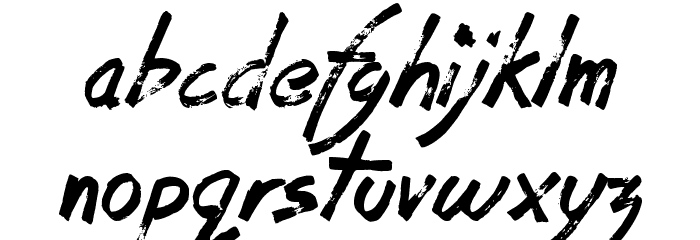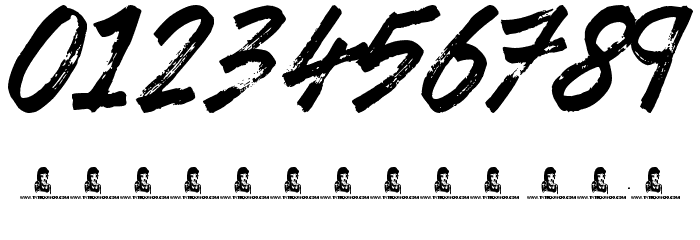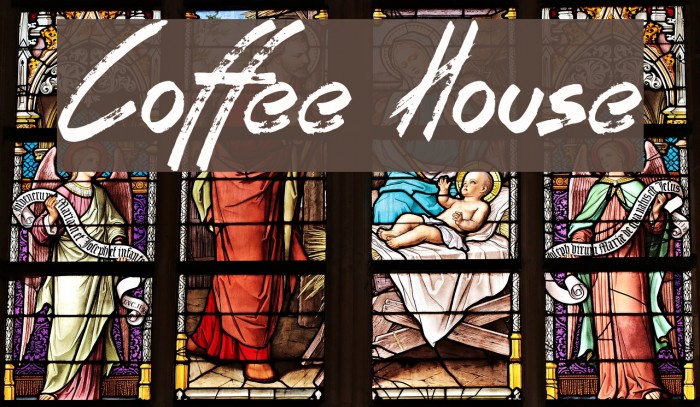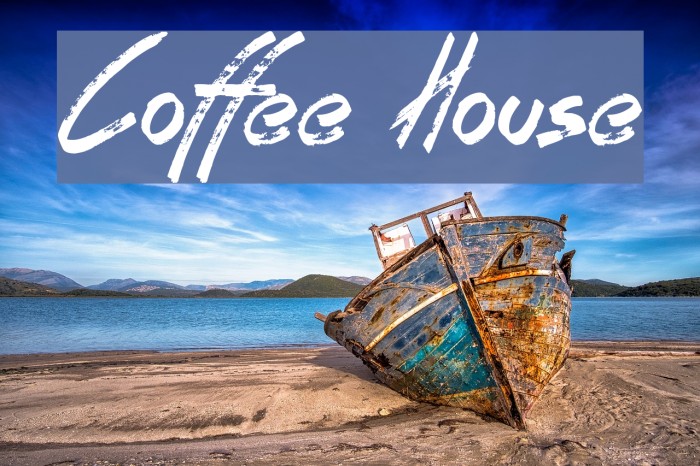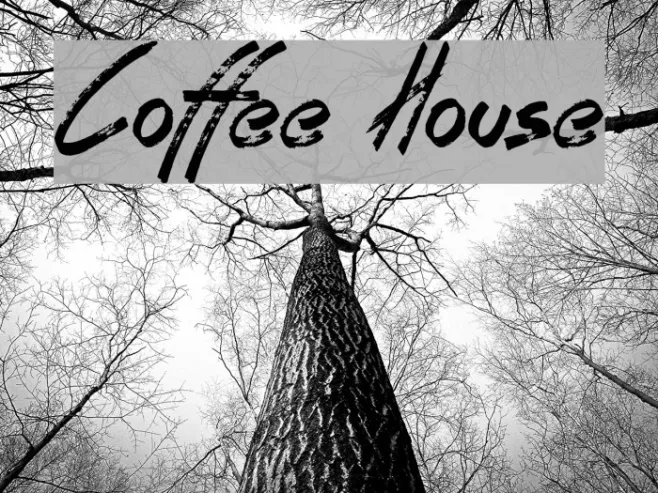
Coffee House Font
This font features a dynamic and energetic script style, characterized by its bold and brush-like strokes. The letters exhibit a distressed texture, giving them a rugged, hand-painted appearance. The uppercase and lowercase letters maintain a consistent style, with a slight slant that adds to the font's lively and informal feel. The numerals and special characters follow the same aesthetic, ensuring a cohesive look across all text elements. This font's unique style makes it stand out, ideal for projects that require a touch of creativity and flair.
A bold, brush-style script font with a distressed texture.
- Proposed Projects: Ideal for branding, posters, and creative design projects that require a bold, artistic touch.